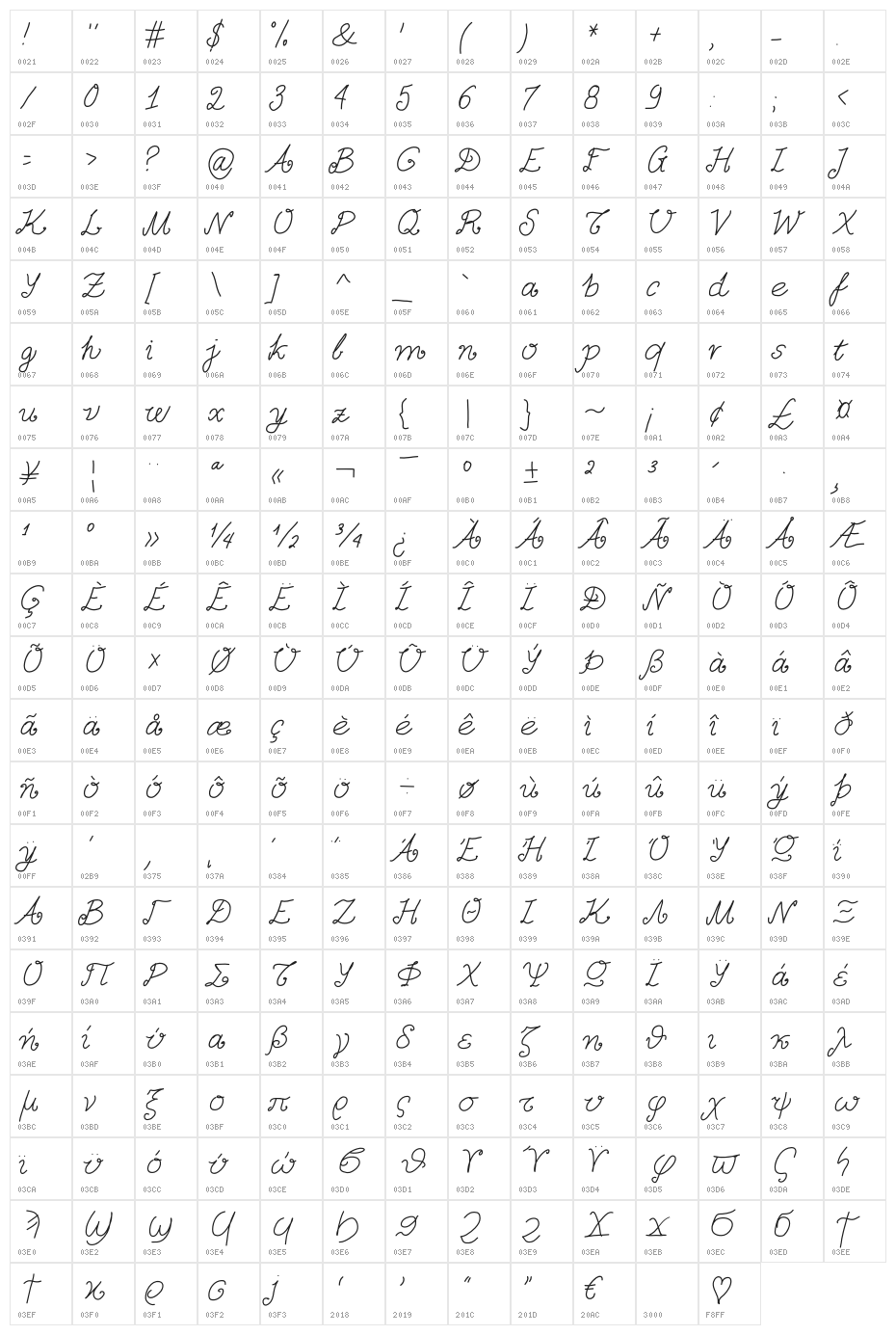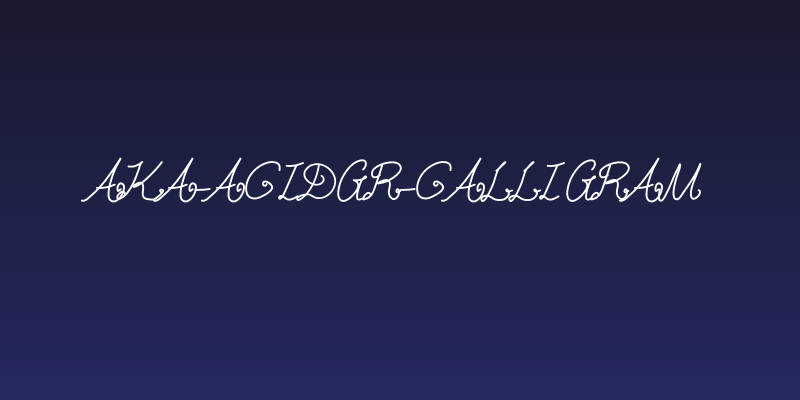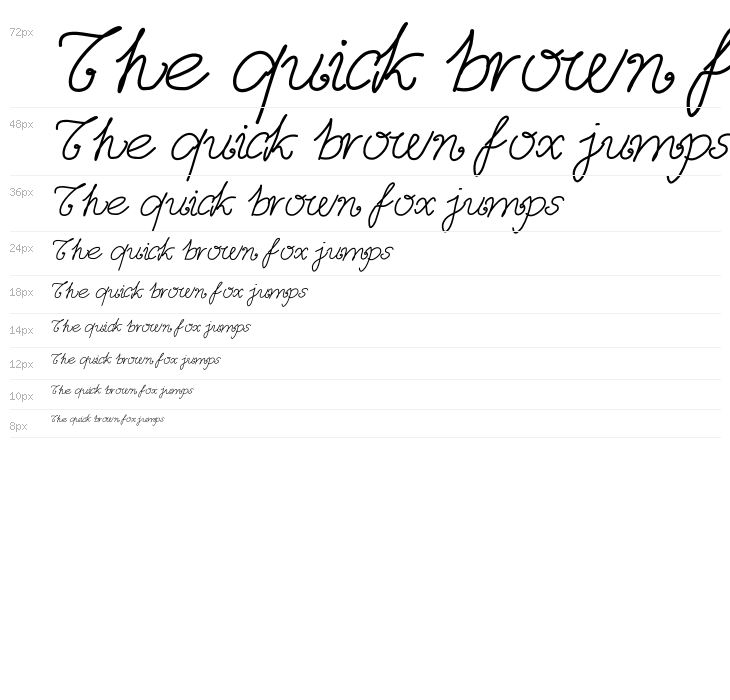
Aka-AcidGR-Calligram Font
Aka-AcidGR-Calligram Description
This font features an elegant and flowing script style, characterized by its cursive and calligraphic elements. The uppercase letters exhibit a graceful and sophisticated appearance, with each letter seamlessly connecting to the next, creating a harmonious and fluid look. The lowercase letters maintain this fluidity, with gentle curves and loops that enhance the overall aesthetic. The numerals are designed with a similar elegance, ensuring consistency throughout. Special characters are thoughtfully integrated, maintaining the font's cohesive style. This font is perfect for projects that require a touch of elegance and sophistication.
| Proposed Projects | Ideal for wedding invitations, elegant branding, personal stationery, and artistic projects. |